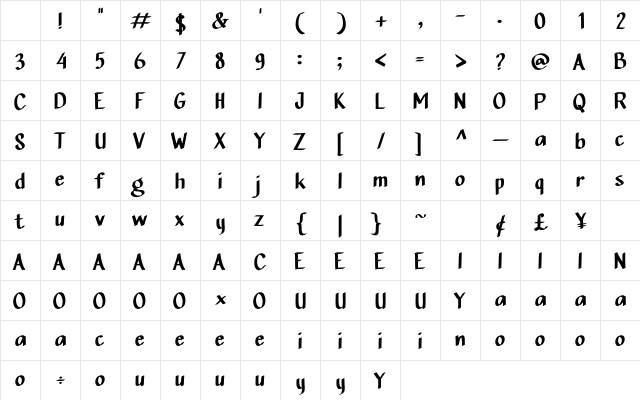
Complete Complain Again Regular glyph index. Displaying only characters natively supported by Complain Again Regular font.
Complain Again is a composed and adaptable typeface that performs quietly and consistently across a wide range of design contexts.